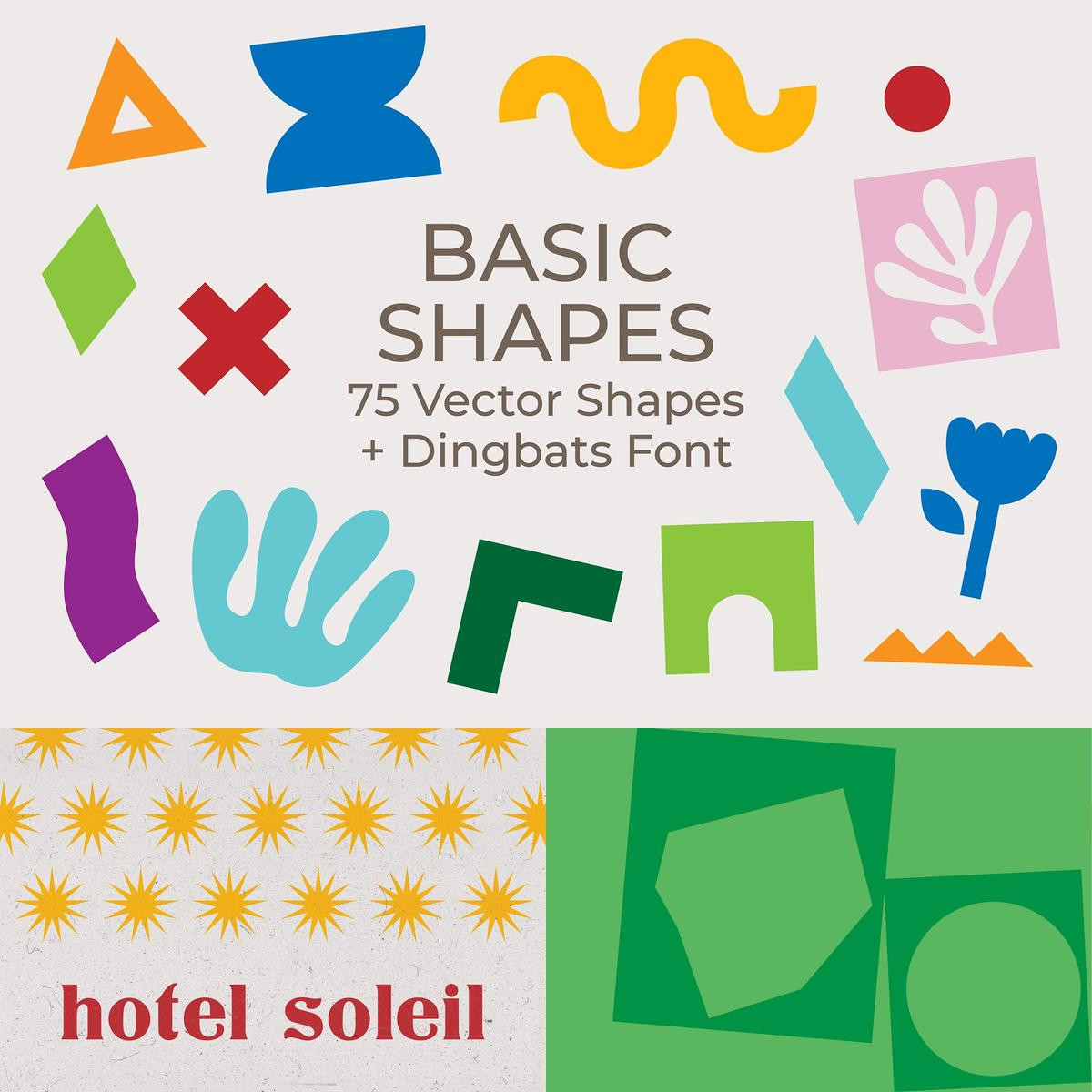
TBH, these shapes are anything but basic: 75 totally unique vector shapes inspired by nature, modern design trends, artist Bruno Munari, retro patterns, and of course, Matisses cut outs. These vector shapes have the range, honey! From surface patterns to branding, packaging to event flyers, theres no reason to have bland, boring designs. We love these symbols so much we made them into a fun little dingbat font, too.